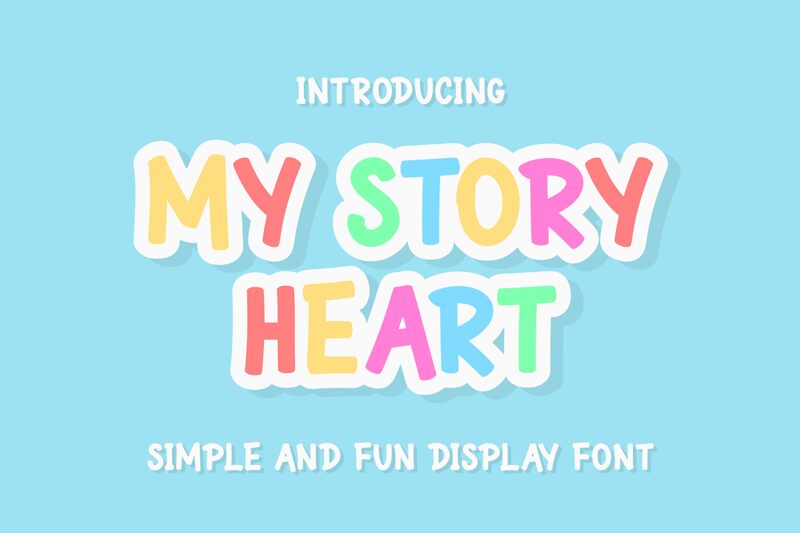
My Story Heart font by Makashi is a free font characterized by a cheerful cartoonish style. The letters present uppercase and lowercase glyphs constructed with subtle differences from one letter to the other, which makes words and whole texture alive. The edges of the characters are variously rounded, providing a playful and fun appearance.
Write the story of your company using My Story Heart. Be it in developmental books or on branding designs and digital posts, it will shine with glamour. It shows a lot of potential in the design of a youthful logo or label design.